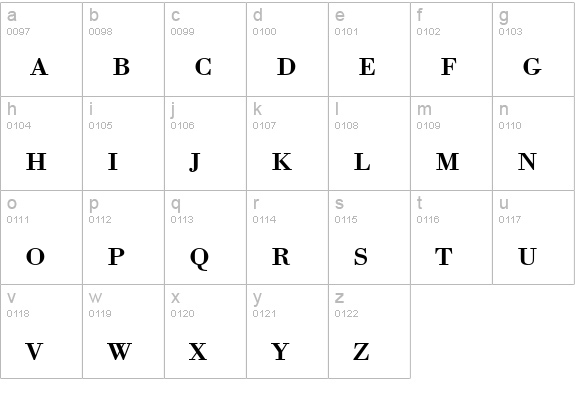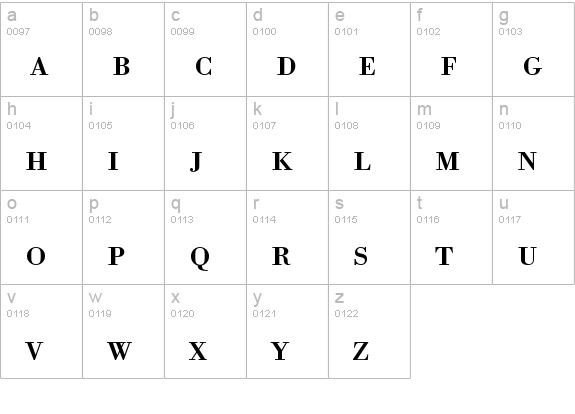
Bodoni BE Regular Small Caps & Oldstyle Figures Font Details
Bodoni BE Regular Small Caps & Oldstyle Figures is the standard, neutral variant in the Bodoni typeface family \xE2\x80\x94 well suited to general body text, paragraphs, and standard typographic work.
Bodoni BE Regular Small Caps & Oldstyle Figures font exudes elegance and sophistication with its classic design and clean lines. Featuring small caps and oldstyle figures, this font is perfect for adding a touch of timeless charm to any project. The sharp serifs and delicate strokes of Bodoni BE Regular Small Caps & Oldstyle Figures font make it ideal for editorial use, branding, and high-end design projects. Best of all, this exquisite font is available for free download at FontsMarket.com. Embrace the beauty and versatility of Bodoni BE Regular Small Caps & Oldstyle Figures font in your next creative endeavor, and elevate your designs with its refined aesthetic.